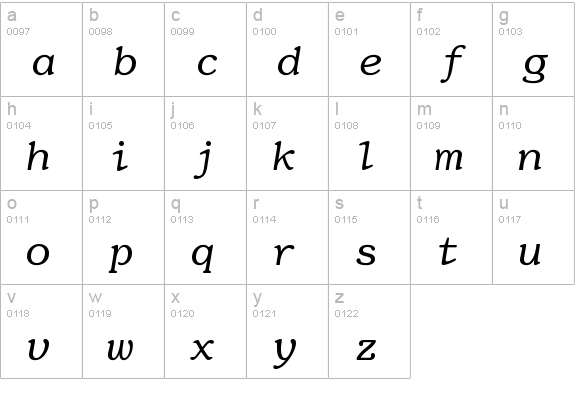
SouvenirMonoEF-LightItalic Font Details
SouvenirMonoEF-LightItalic is a stunning and elegant font that exudes a sense of sophistication and refinement. Its delicate and slanted italic style adds a touch of grace to any design or project. The flowing lines and gentle curves of this typeface make it a perfect choice for creating eye-catching headlines, stylish logos, or captivating body text. What makes SouvenirMonoEF-LightItalic even more appealing is that it is available for free! Yes, you read that right. This extraordinary font can be freely downloaded from FontsMarket.com. It's a fantastic opportunity to add a touch of class to your creative endeavors without spending a dime. Whether you're a professional designer looking to elevate your work or an individual seeking to enhance personal projects, SouvenirMonoEF-LightItalic is here to impress. Its versatility allows it to adapt to a wide range of design styles and themes, making it a valuable asset in your font library. From invitations to business cards, from website headers to social media graphics, SouvenirMonoEF-LightItalic will effortlessly elevate the visual appeal of your projects. Its unique and distinctive characteristics will help you stand out from the crowd and leave a lasting impression on your audience. Don't miss out on the opportunity to enhance your designs with this exceptional font. Visit FontsMarket.com now to download SouvenirMonoEF-LightItalic for free and witness the transformative power it possesses. Elevate your creative endeavors with this freely available font and unlock a world of possibilities.